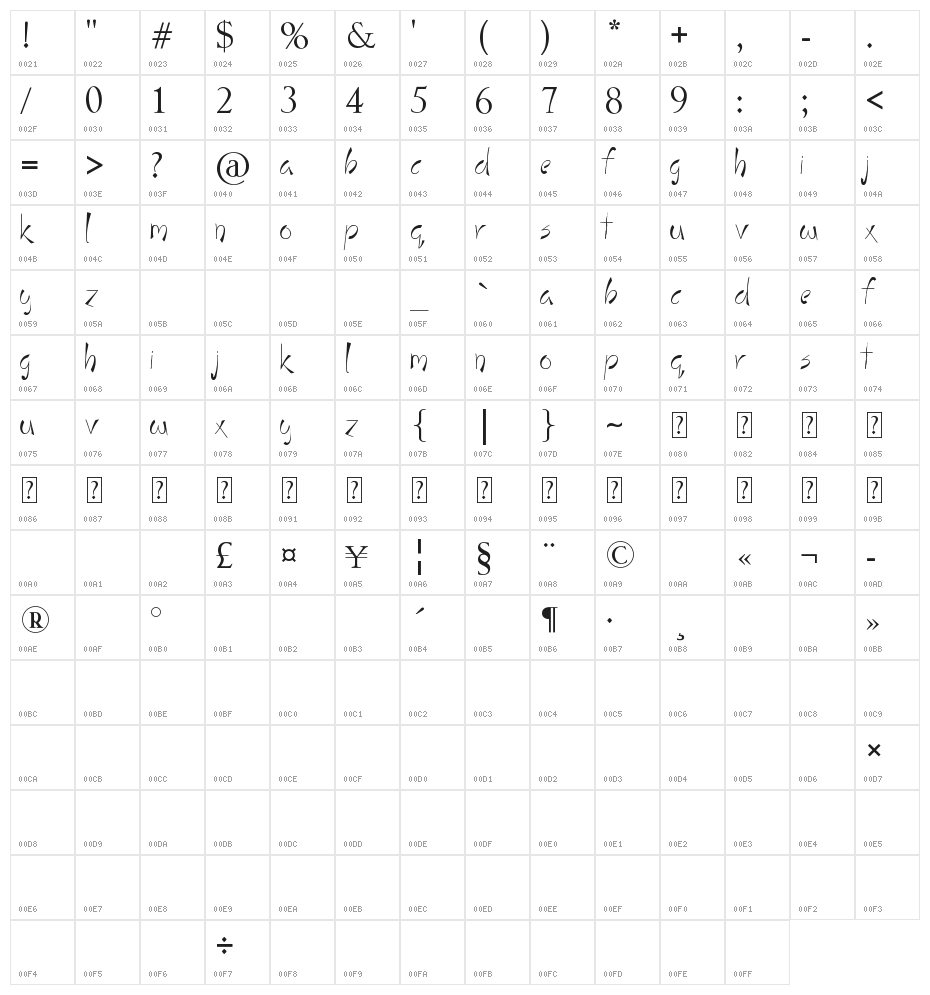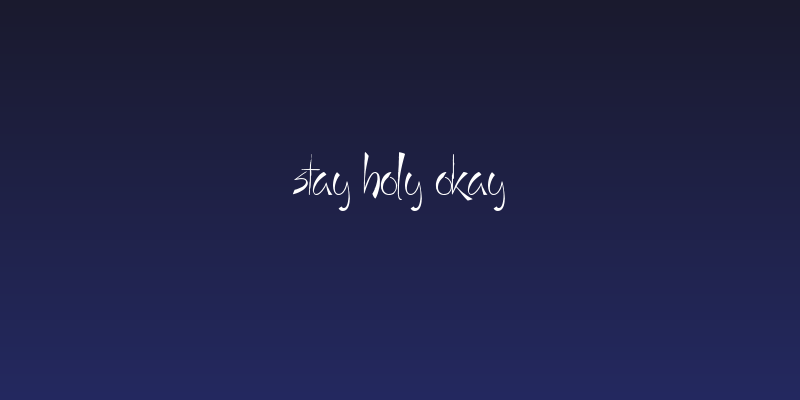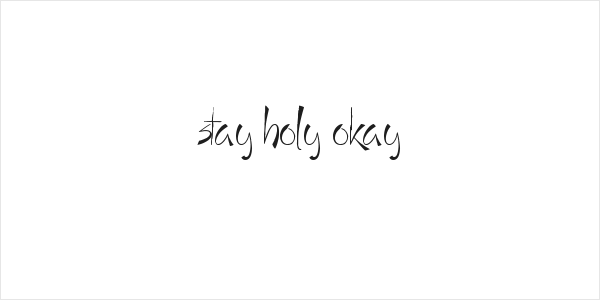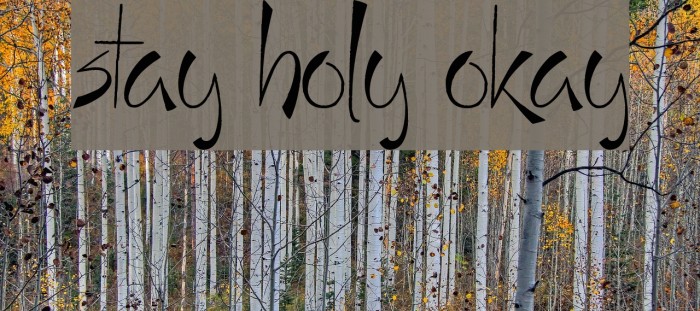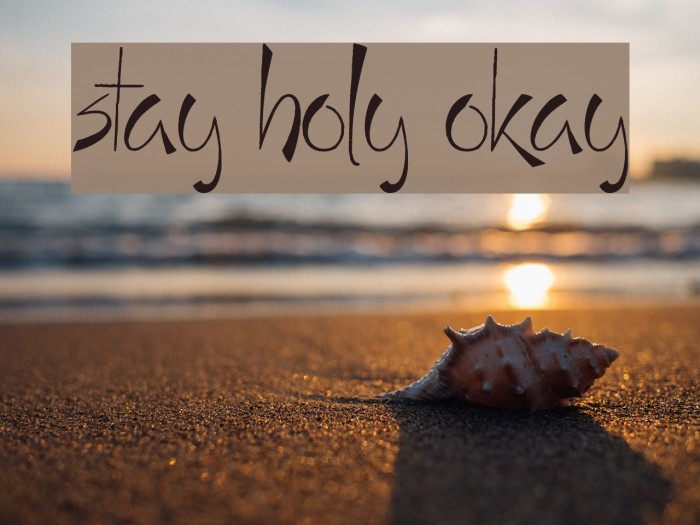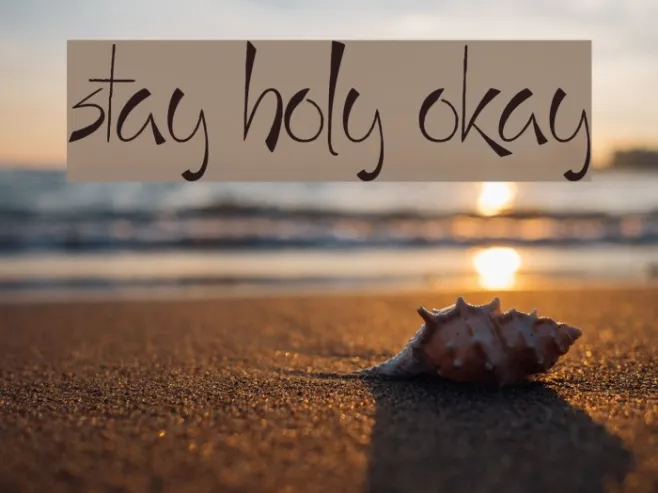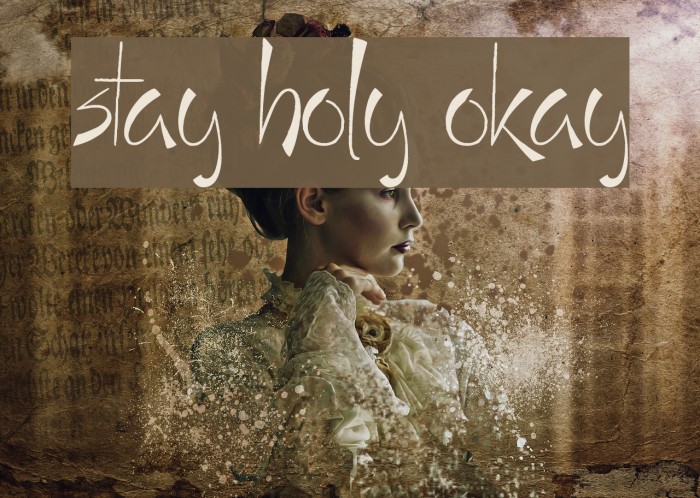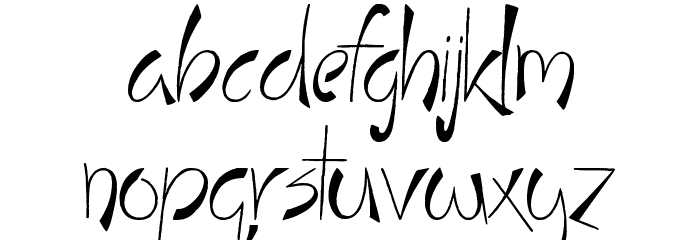
Stay Holy Okay Font
Stay Holy Okay Description
This font exhibits a unique, artistic flair with its handwritten style, characterized by sharp, angular strokes and a dynamic flow. The letters have a distinct, slightly irregular form that adds to its charm, making it stand out in any design. The uppercase and lowercase letters maintain a consistent style, with some letters featuring elongated ascenders and descenders, adding to the overall whimsical appearance. The numerals and special characters are crafted with the same attention to detail, ensuring a cohesive look across all elements. This font is perfect for projects that require a touch of creativity and individuality.
| Use Case | Logos, Headlines, Artistic designs |
| Proposed Projects | Ideal for creative projects such as invitations, greeting cards, posters, and artistic branding. |